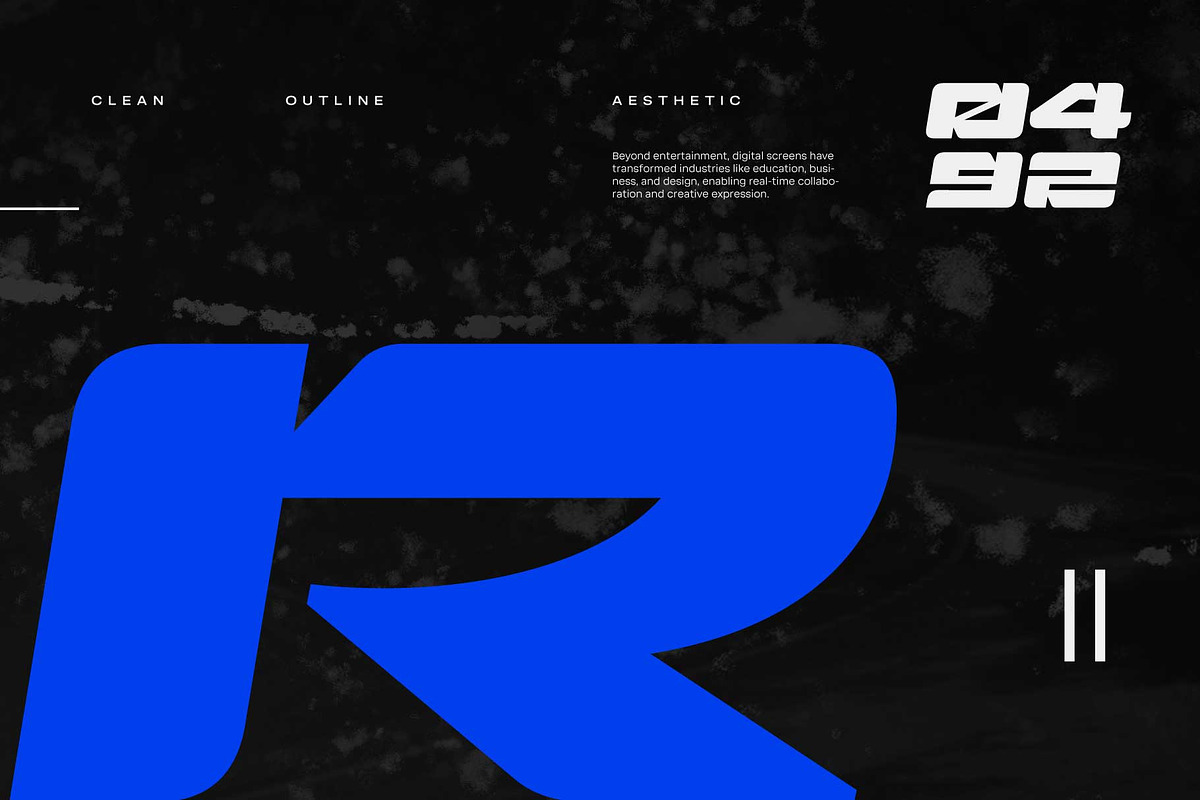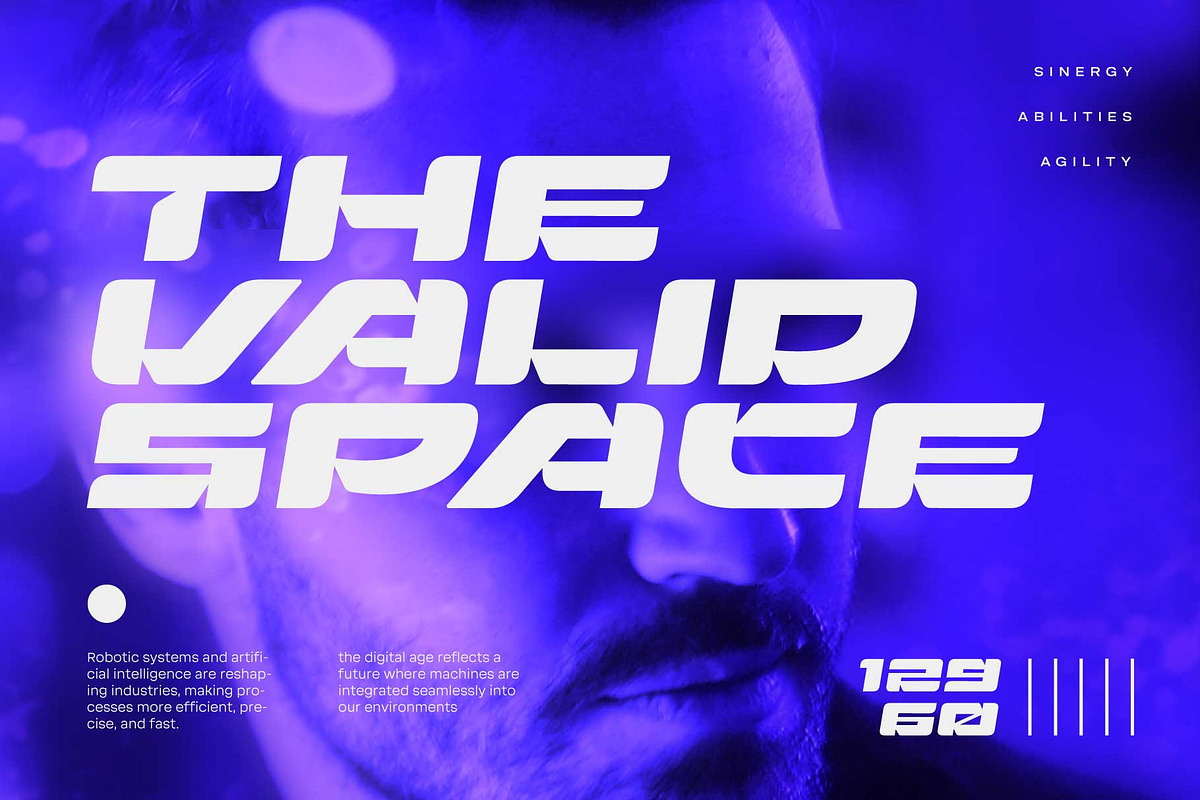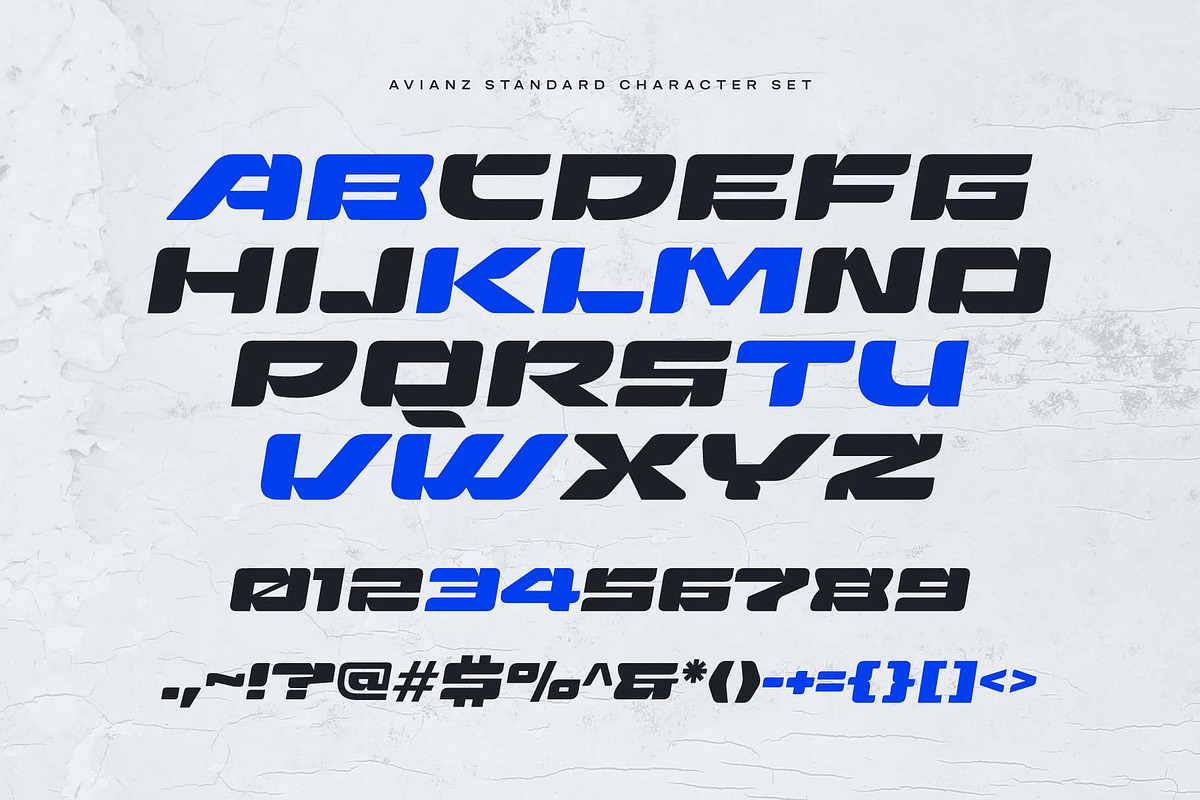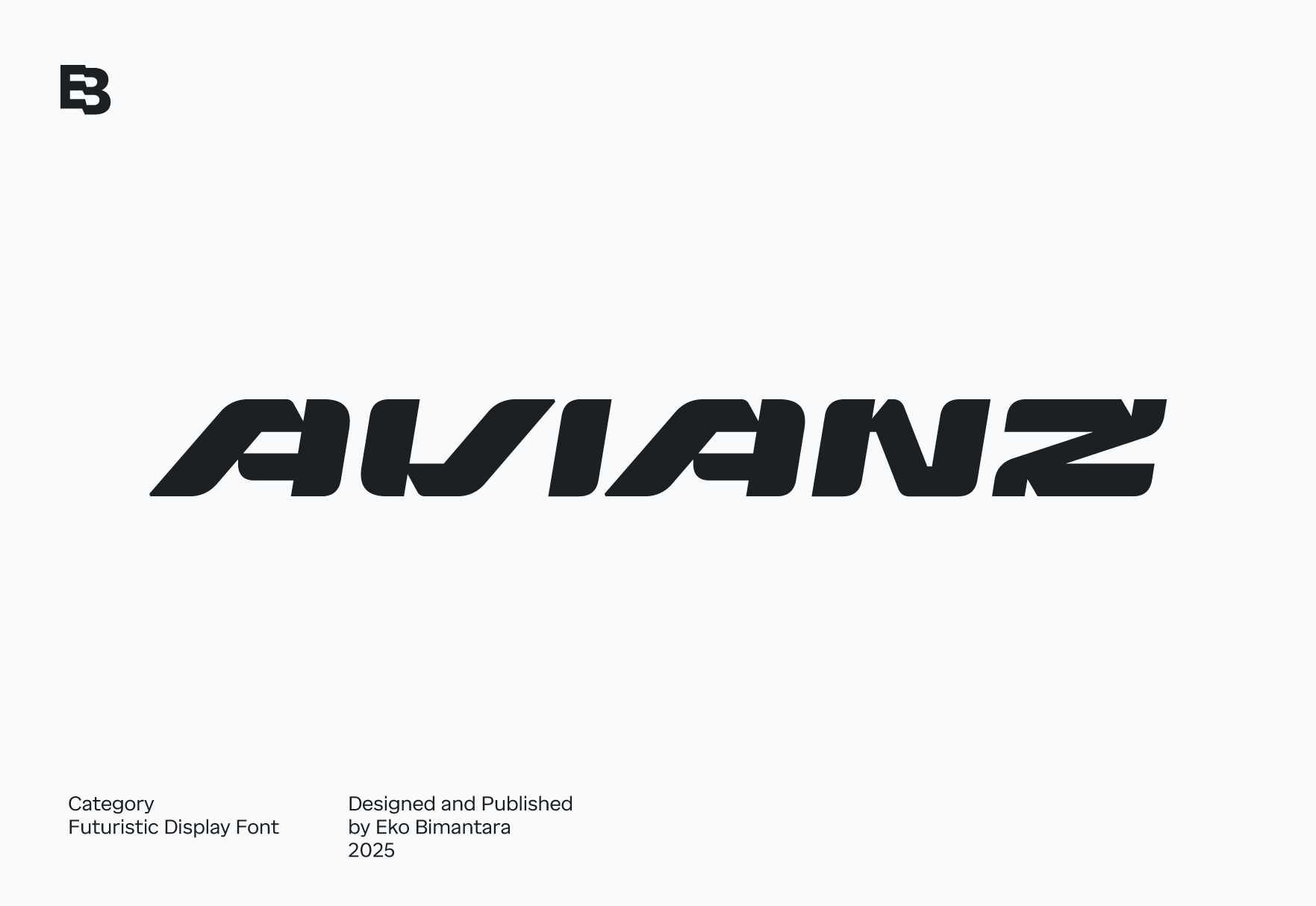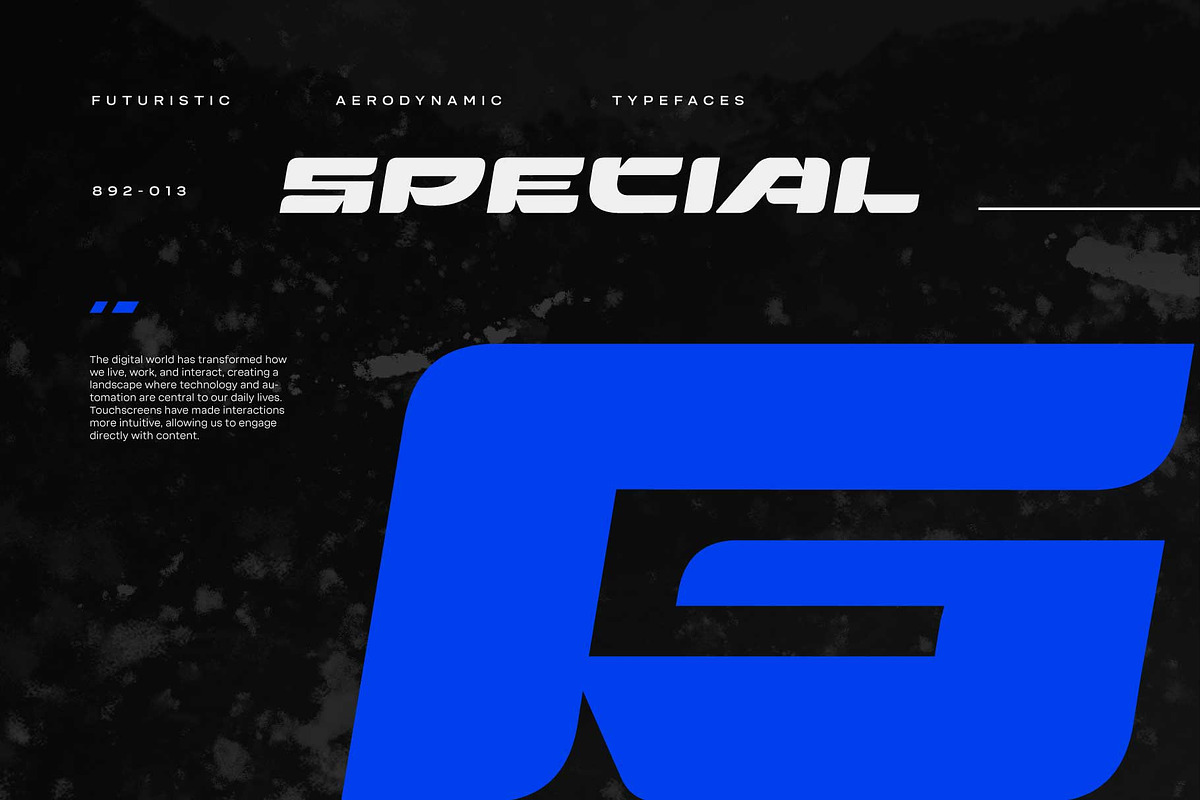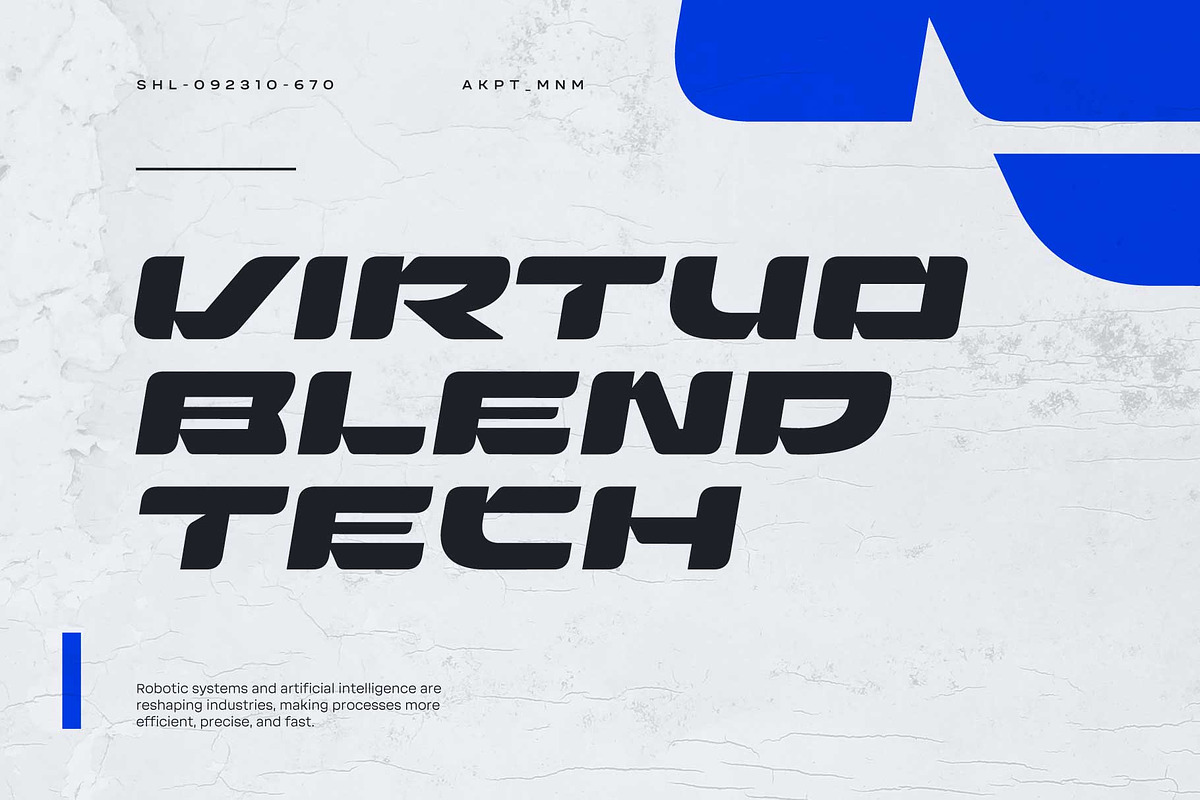
Avianz; Futuristic Display Font
Avianz is a wide, futuristic display font designed with a clean, bold, and neat aesthetic, making it perfect for high-end digital and technology-themed projects. Its sleek and modern design fits themes such as corporate, airplane, enterprise, and contemporary design. Ideal for display, large sizes, titles, headers, websites, brand identities, product packaging, and various graphic design purposes, Avianz brings a futuristic, professional touch to any project requiring a striking and functional visual impact.